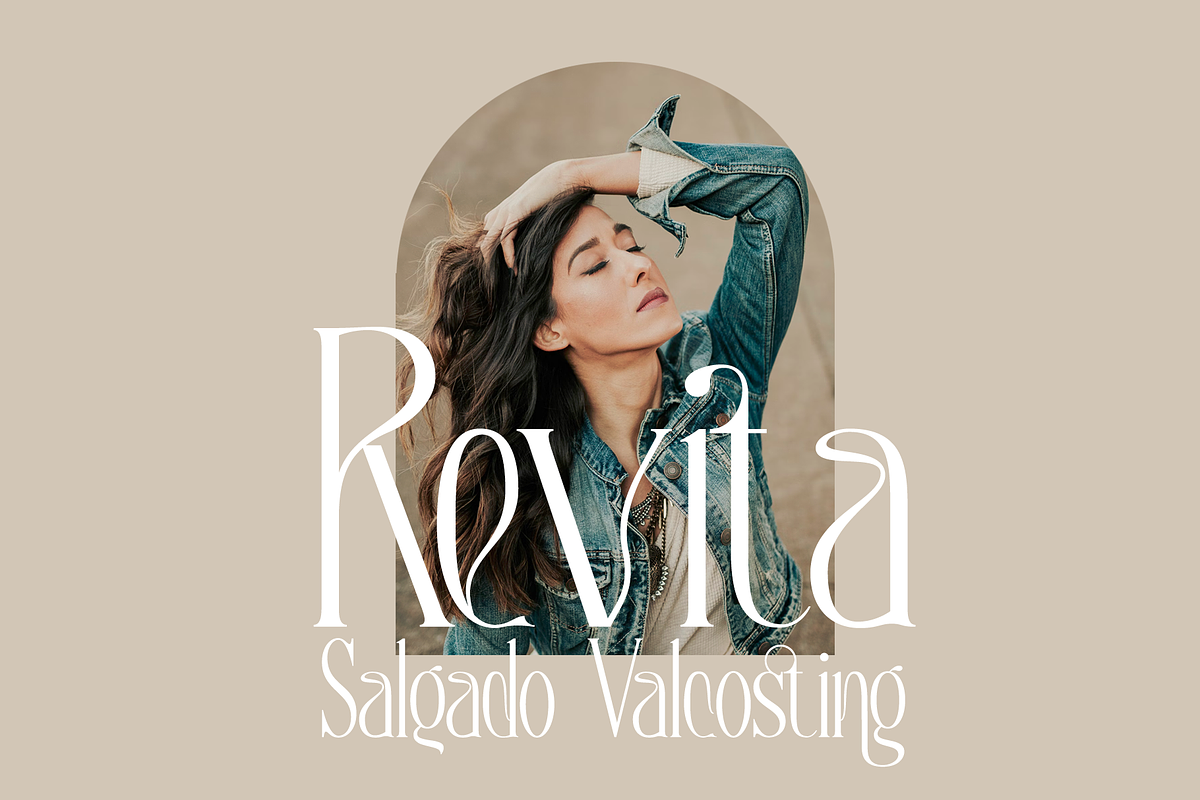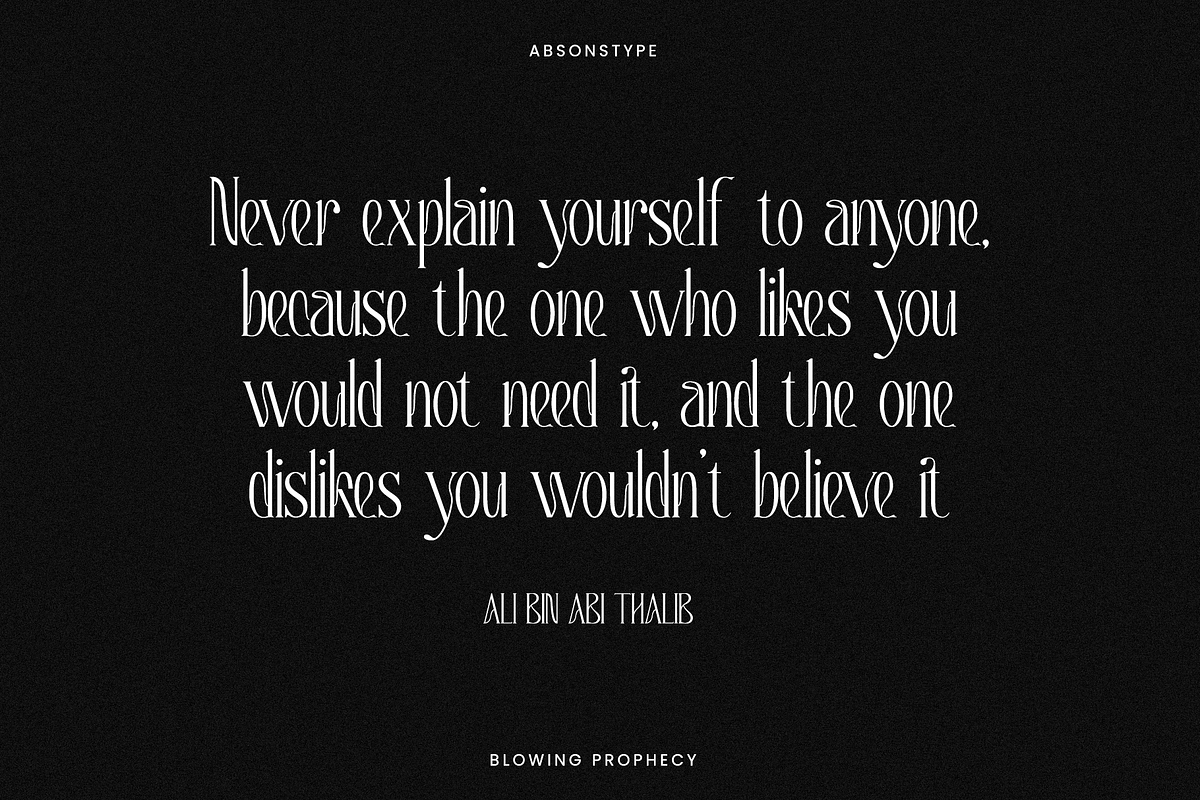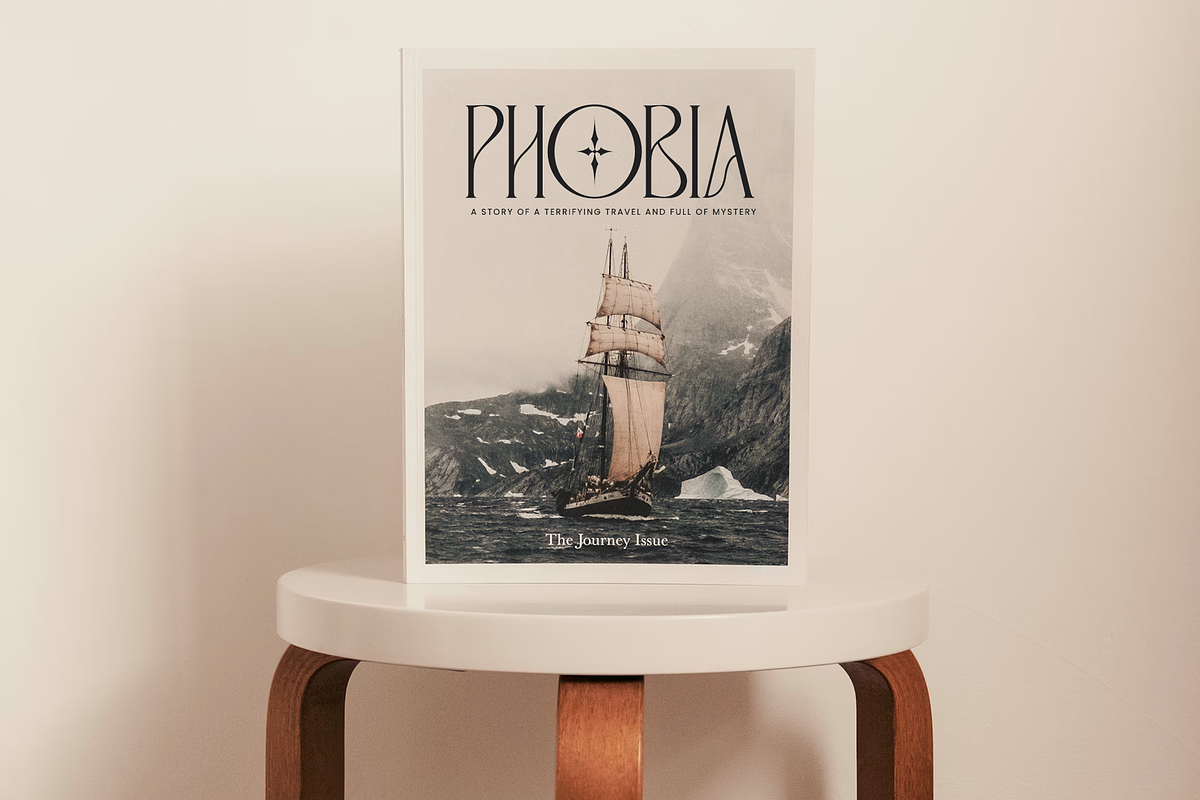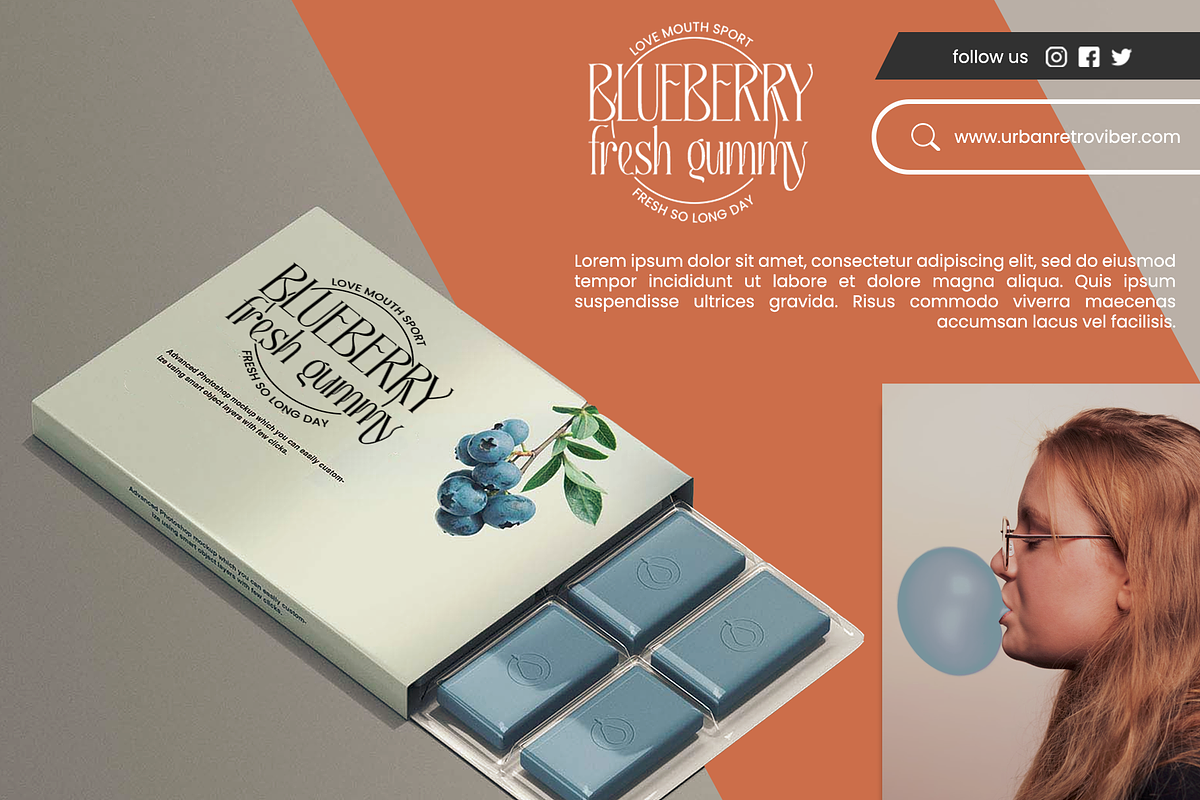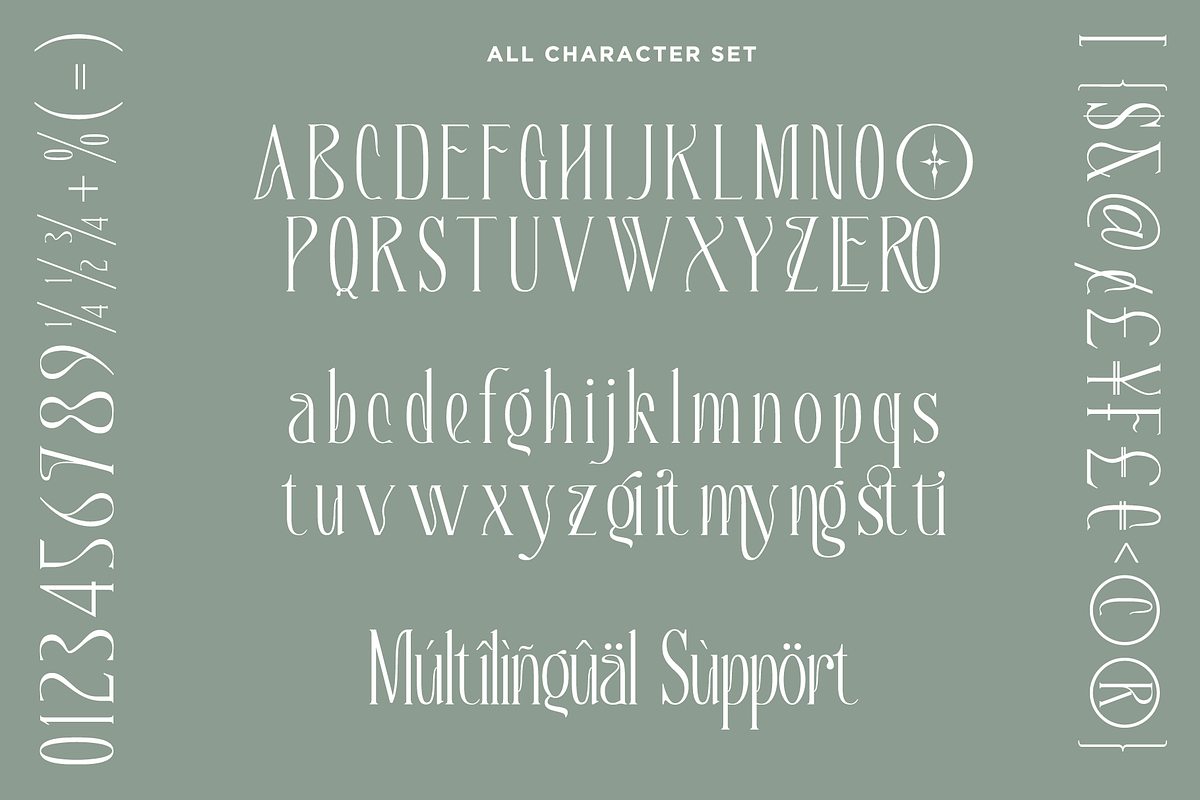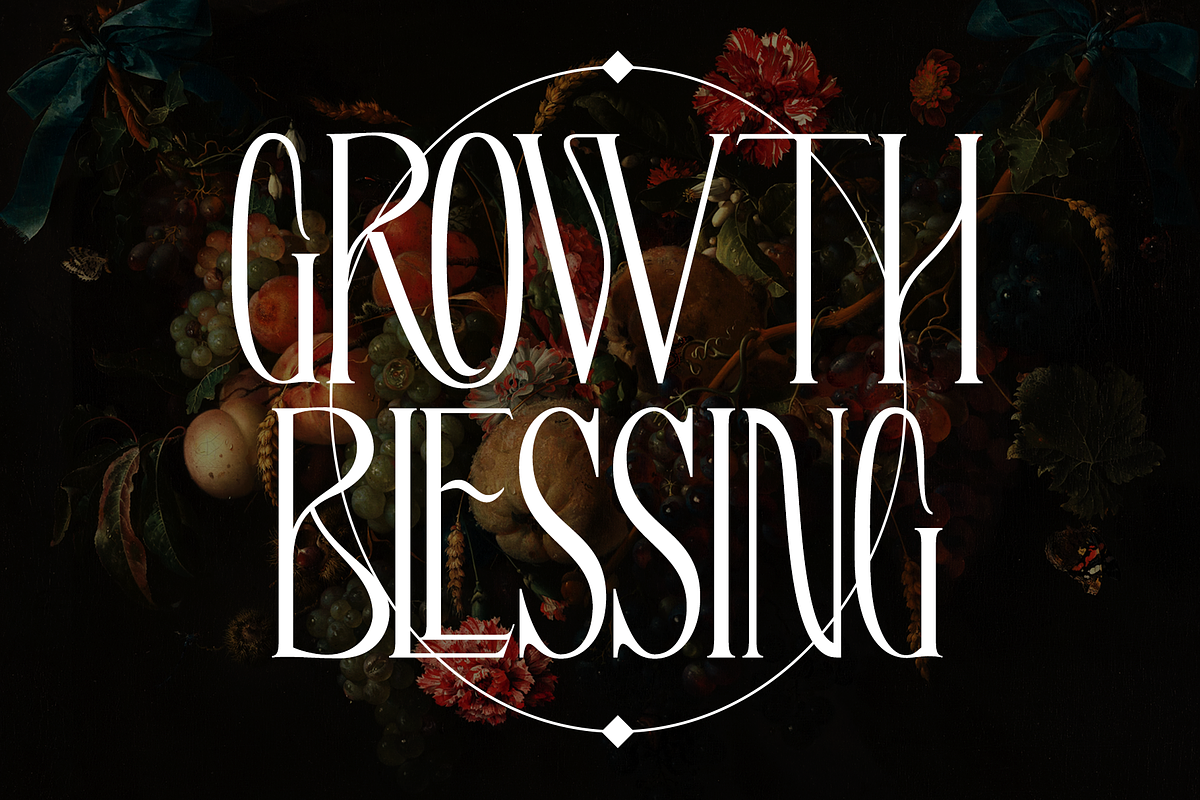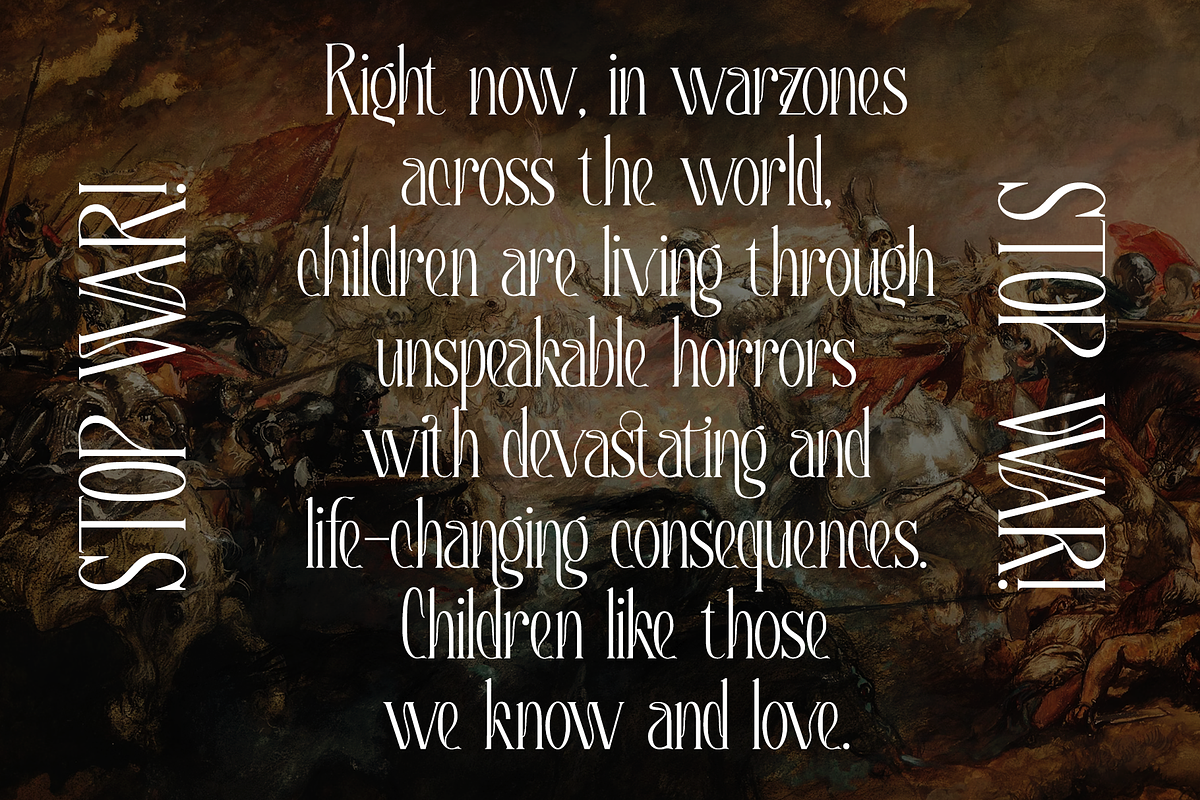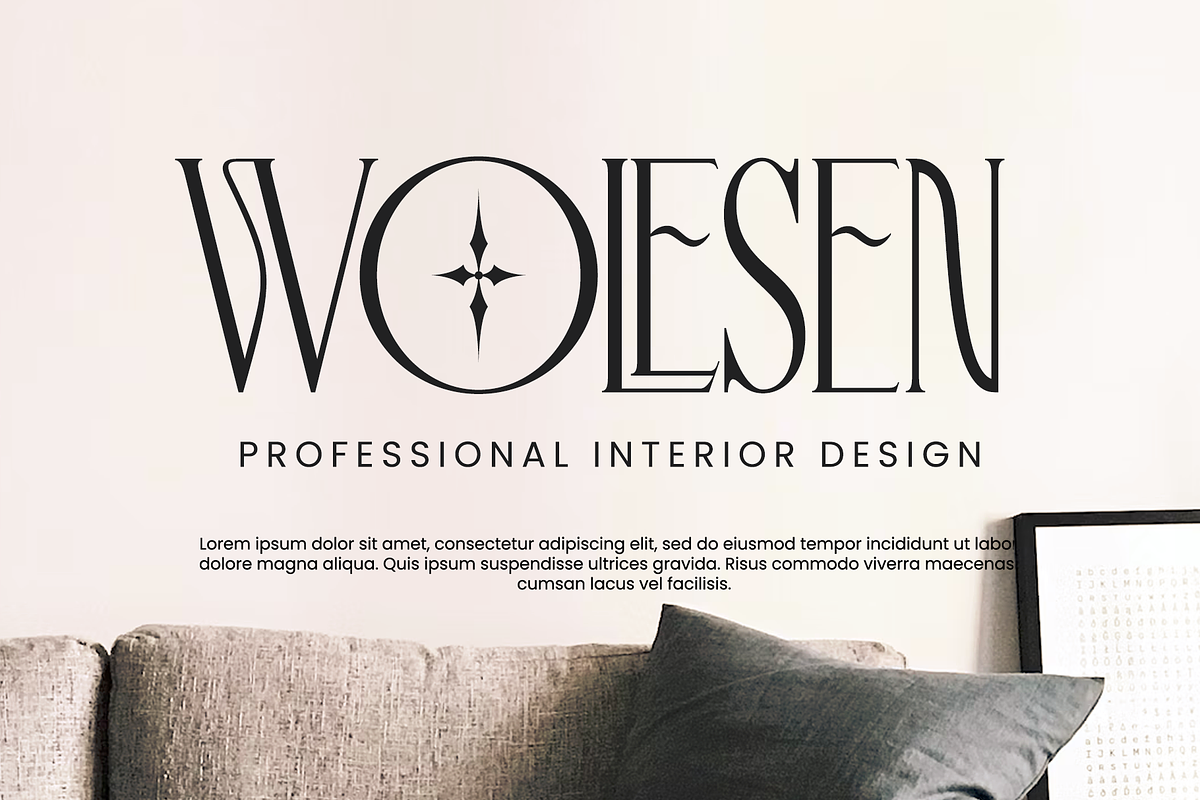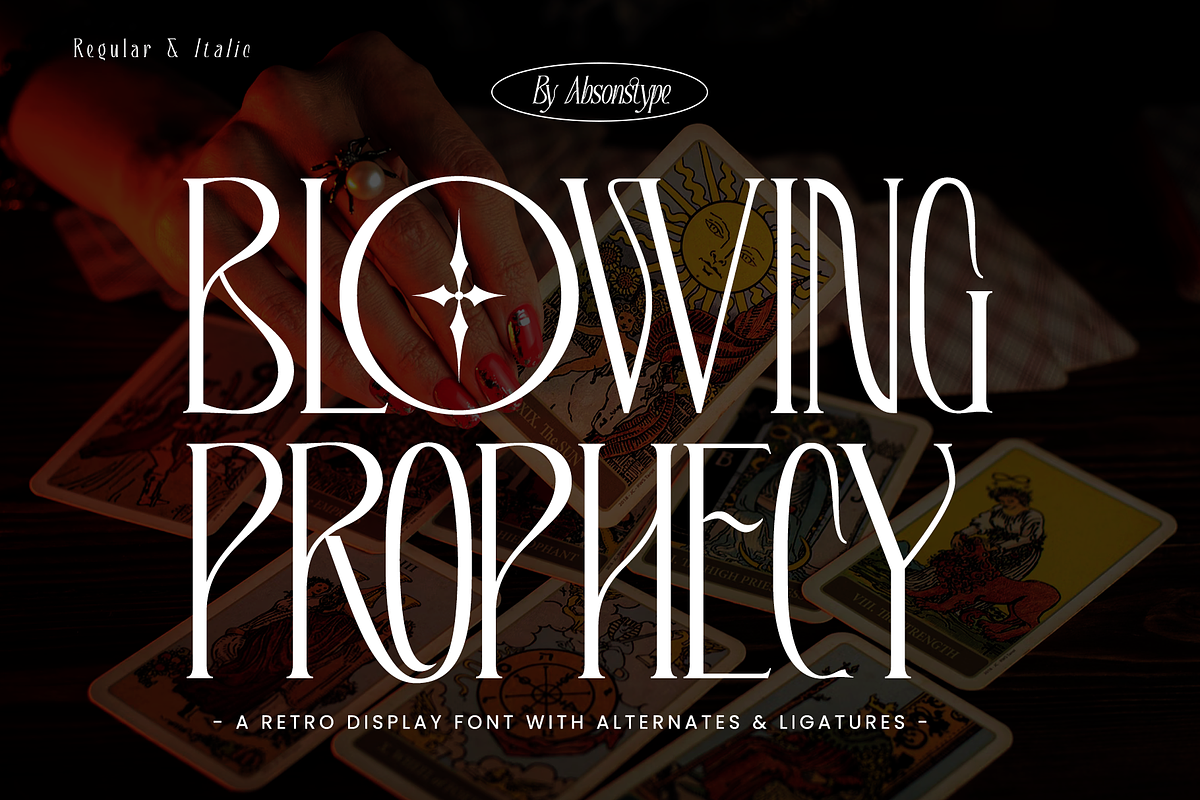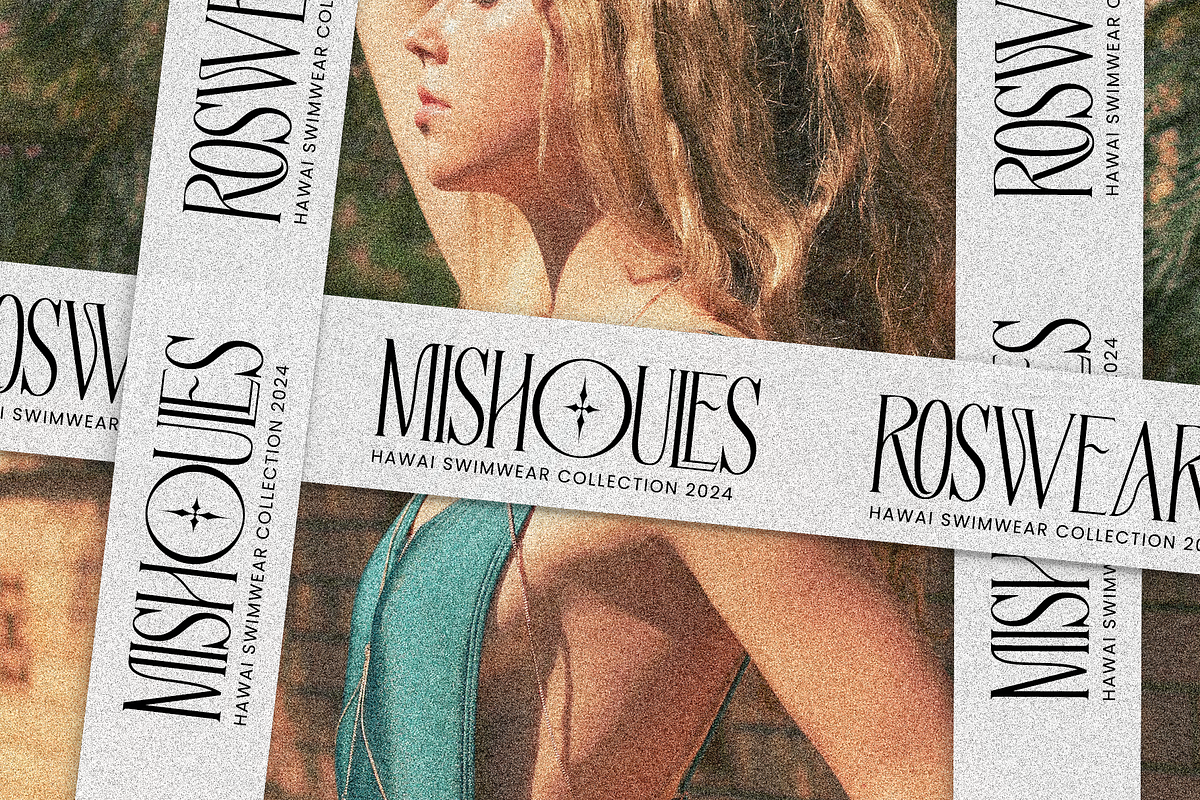
BLOWING PROPHECY - Absonstype
BLOWING PROPHECY is the Unique Serif display typeface with combine uppercase and lowercase looks and feel nice balanced. Provide with alternates and ligatures font in variant style make the design letter looks nice. Honestly it works perfectly for headlines, logos, posters, packaging, T-shirts and much more.
- Regular version
- Character set A-Z in Uppercase and Lowercase
- Alternates in Uppercase and Lowercase
- Ligatures in Lowercase
- Accented Characters
- Multiple Languages Supported